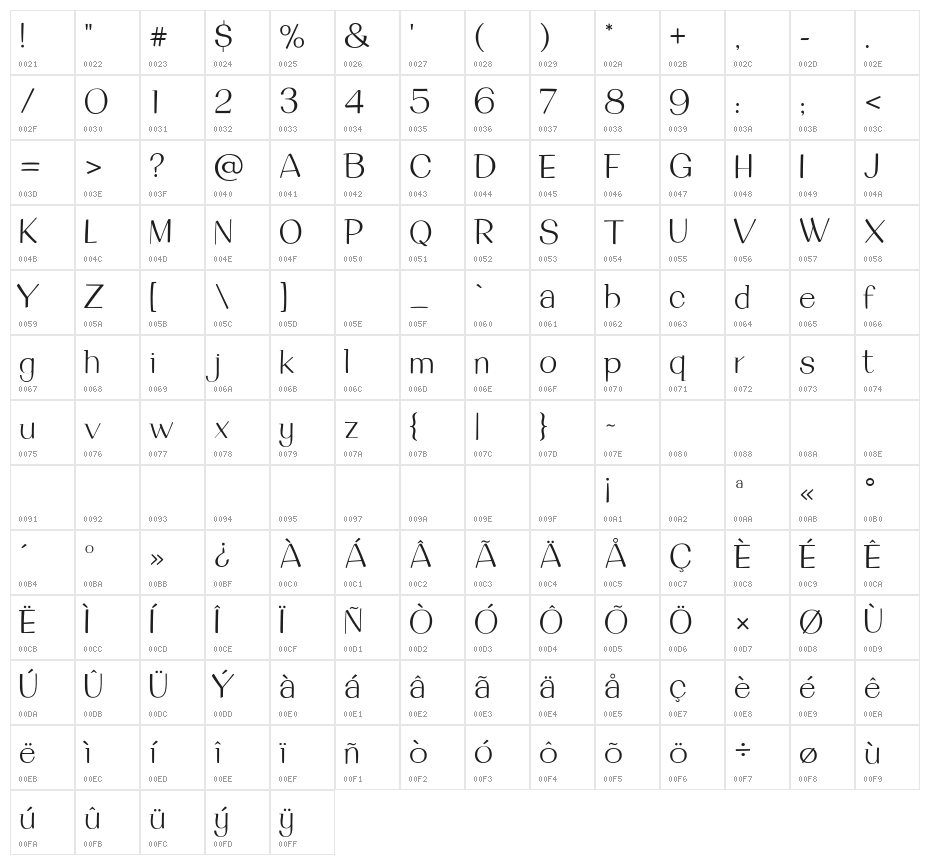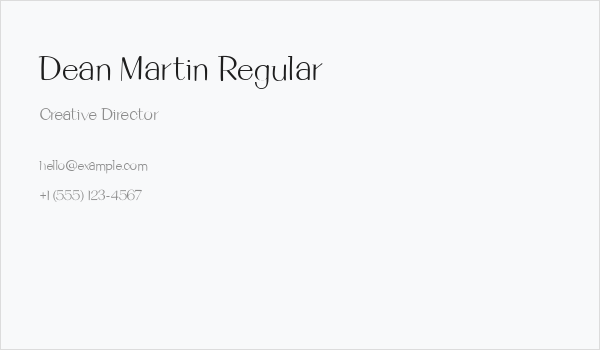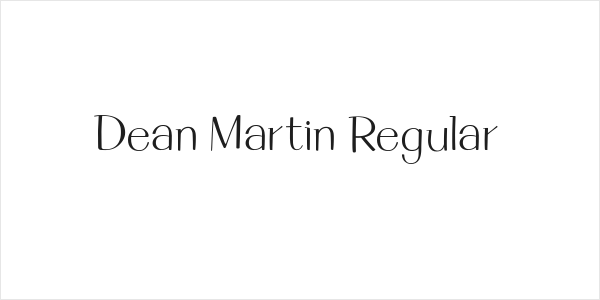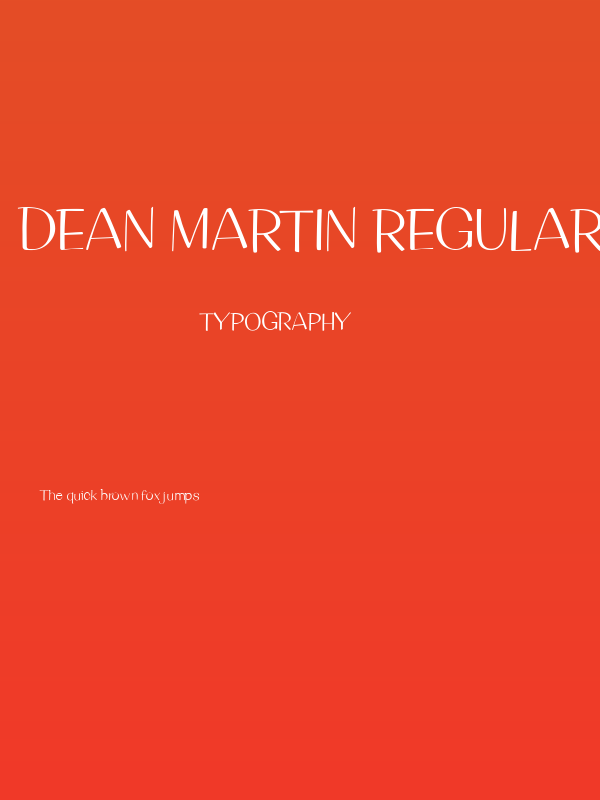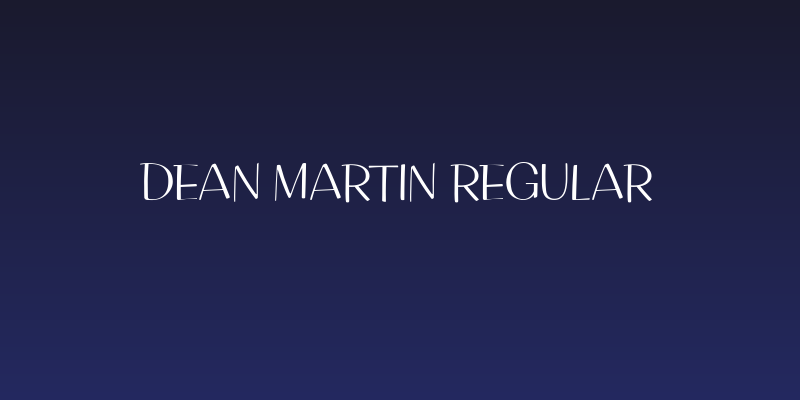
Dean Martin Regular Font
Dean Martin Regular Description
This font presents a sophisticated and elegant style with a modern twist. The characters are sleek and slightly elongated, giving a sense of refinement and class. The uppercase letters are tall and commanding, while the lowercase letters maintain a consistent flow with gentle curves. The numerals are clear and balanced, ensuring readability. Special characters are designed with a subtle flair, adding to the overall aesthetic. The font's clean lines and smooth transitions make it versatile for various design applications.
Proposed ProjectsIdeal for branding, editorial design, fashion magazines, and luxury product packaging.